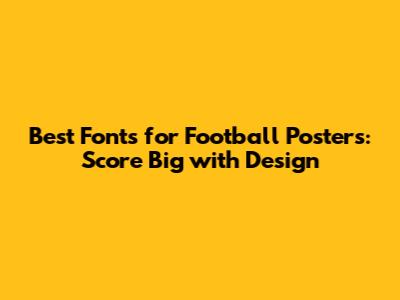
Choosing the right font for your football poster is like picking the star player for your team – it can make all the difference! A font isn't just about letters; it's about creating a mood, conveying energy, and making a statement that resonates with fans. When it comes to designing football posters, the font you select needs to be legible from a distance, visually impactful, and reflective of the sport's dynamic nature. In this article, we'll explore some of the best fonts that can help you create winning designs that capture the excitement and spirit of the game.
Why Font Choice Matters for Football Posters
Font choice is paramount in creating effective football posters because it directly impacts readability, visual appeal, and overall message communication. The right font can instantly convey the energy, intensity, and excitement associated with football, while the wrong choice can make a poster look amateurish or difficult to read.
Readability is crucial, especially for posters viewed from a distance or in passing. A clear, legible font ensures that viewers can quickly grasp the essential information, such as game schedules, team names, and promotional details. Visual appeal is equally important; a well-chosen font can enhance the aesthetic quality of the poster, making it more eye-catching and memorable. By carefully considering factors like font style, size, and spacing, designers can create posters that not only inform but also captivate and engage the target audience. Ultimately, the font choice is a key element in achieving the desired impact and ensuring that the poster effectively communicates its message. So, when designing your next football poster, remember that your font choice is more than just a design element—it's a powerful tool for enhancing communication and creating a lasting impression.
Top Font Categories for Football Posters
When selecting fonts for football posters, several categories stand out due to their ability to capture the sport's energy and spirit. Bold sans-serif fonts are a popular choice for headlines and titles, offering excellent readability and a strong, modern look. Slab serif fonts provide a more vintage or traditional feel, ideal for posters that aim to evoke a sense of history or nostalgia. Script fonts, with their fluid and dynamic strokes, can add a touch of flair and excitement, particularly when used sparingly for emphasis or decorative elements. Display fonts, designed to be eye-catching and attention-grabbing, are perfect for creating impactful visuals that stand out from the crowd. Within each category, there are numerous font variations to explore, allowing designers to tailor their selections to match the specific theme and style of the poster. Whether you're aiming for a sleek and contemporary design or a more rugged and classic aesthetic, understanding these font categories will help you make informed decisions and create posters that resonate with your target audience.
Bold Sans-Serif Fonts
Bold sans-serif fonts are a staple in football poster design due to their clean lines, excellent readability, and modern appearance. These fonts are particularly effective for headlines, titles, and other prominent text elements that need to grab attention quickly. Their simplicity ensures clarity, even from a distance, making them ideal for posters displayed in large venues or outdoor settings. Bold sans-serif fonts exude a sense of strength, confidence, and dynamism, perfectly capturing the essence of football. They are versatile and can be used in a variety of design styles, from minimalist and contemporary to bold and energetic. Some popular choices in this category include Impact, Bebas Neue, and Montserrat, each offering unique characteristics while maintaining the core qualities of readability and visual impact. When using bold sans-serif fonts, it's essential to consider factors such as letter spacing and line height to optimize legibility and create a visually appealing composition. By leveraging the power of bold sans-serif fonts, designers can create football posters that command attention and effectively communicate their message.
Slab Serif Fonts
Slab serif fonts offer a distinctive and robust aesthetic, making them an excellent choice for football posters aiming to convey a sense of tradition, strength, and heritage. These fonts are characterized by their thick, block-like serifs, which provide a grounded and authoritative feel. Slab serif fonts are particularly well-suited for vintage-inspired designs, team logos, and headlines that require a bold and impactful presence. Their sturdy appearance evokes a sense of reliability and resilience, qualities often associated with football teams and their unwavering spirit. Popular slab serif fonts for football posters include Rockwell, Arvo, and Roboto Slab, each offering unique variations in weight and style. When incorporating slab serif fonts into your design, it's important to balance their boldness with sufficient white space to prevent the poster from feeling cluttered. Careful consideration of color and typography can further enhance the visual impact of slab serif fonts, creating a cohesive and engaging design that resonates with football fans.
Script Fonts
Script fonts can add a touch of flair and personality to football posters, providing a dynamic and expressive element that complements the sport's energy. These fonts mimic the fluidity and elegance of handwriting, making them ideal for adding a personal touch or highlighting specific elements, such as player names or motivational slogans. When used sparingly and strategically, script fonts can create a sense of excitement and movement, capturing the spirit of the game. However, it's crucial to choose script fonts that are legible and avoid overly ornate styles that may be difficult to read from a distance. Popular choices for football posters include Brush Script MT, Pacifico, and Lobster, each offering unique variations in style and character. When incorporating script fonts, consider pairing them with a clean sans-serif font for the body text to ensure readability and balance. Experiment with different sizes, colors, and placements to find the perfect combination that enhances the overall design and conveys the desired message.
Display Fonts
Display fonts are designed to be eye-catching and attention-grabbing, making them a perfect choice for football posters that need to stand out from the crowd. These fonts often feature unique shapes, bold strokes, and distinctive characteristics that command attention and create a memorable visual impact. Display fonts are particularly effective for headlines, titles, and other prominent text elements that need to make a statement. They can be used to convey a variety of emotions and themes, from excitement and energy to strength and determination. When selecting display fonts for your football poster, it's important to choose fonts that align with the overall design aesthetic and target audience. Consider factors such as readability, scalability, and compatibility with other fonts in the design. Some popular choices for football posters include varsity-inspired fonts, futuristic fonts, and bold, geometric fonts that exude a sense of power and dynamism. Experiment with different display fonts and combinations to find the perfect one that captures the essence of football and effectively communicates your message.
Examples of Winning Font Combinations
Creating a visually appealing and effective football poster often involves combining different fonts to achieve balance and contrast. Here are some winning font combinations that can elevate your design: Pair a bold sans-serif font like Bebas Neue for headlines with a clean sans-serif font such as Open Sans for body text to ensure readability and a modern look. Combine a slab serif font like Roboto Slab for titles with a simple sans-serif font like Lato for supporting text to create a vintage-inspired feel with a touch of contemporary flair. Use a script font like Pacifico for player names or motivational slogans, paired with a sturdy sans-serif font like Montserrat for the remaining text to add personality while maintaining legibility. Experiment with display fonts for impactful visuals, pairing them with a neutral sans-serif font like Arial for body text to ensure the focus remains on the headline. Remember to consider the overall theme and style of your football poster when selecting font combinations, and always prioritize readability and visual harmony. By carefully combining different fonts, you can create a design that captures the energy of the sport and effectively communicates your message.
Tips for Effective Font Use in Football Posters
To maximize the impact of your font choices in football posters, consider these essential tips: Prioritize readability by selecting fonts that are clear and easy to read from a distance, especially for key information like game schedules and team names. Limit the number of fonts used in your design to avoid visual clutter; typically, two to three fonts are sufficient to create balance and contrast. Use font hierarchy to guide the viewer's eye and emphasize important elements, such as headlines and calls to action. Experiment with font sizes, weights, and styles to create visual interest and highlight key information. Pay attention to letter spacing and line height to optimize legibility and prevent text from appearing cramped or disjointed. Consider the overall tone and style of your football poster when selecting fonts; choose fonts that align with the theme and target audience. Test your design in various sizes and formats to ensure that the fonts remain legible and visually appealing. By following these tips, you can create football posters that effectively communicate your message and capture the excitement of the game.